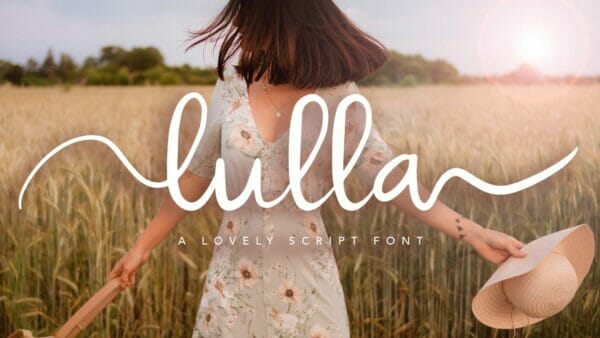
Lulla Font – A Lovely Script Font
A handcrafted lovely script font. Lulla font is suitable for any design needs; quote, wedding, book, banner, poster, print media, promotion, business card, profile, fashion, makeup, etc.
– Uppercase & Lowercase letters
– Numbering and Punctuation
– Ligatures
– Alternative fonts